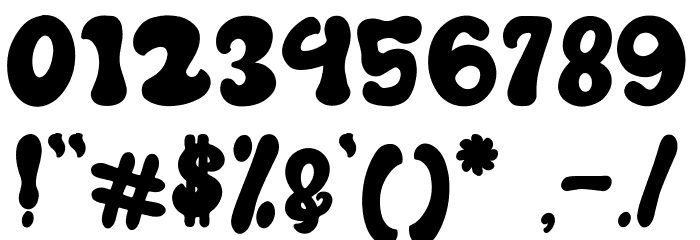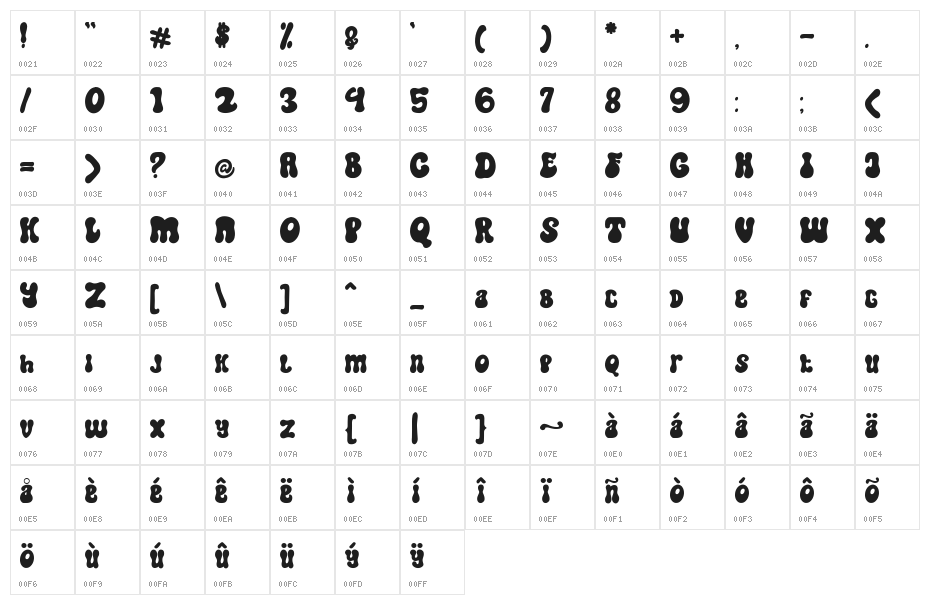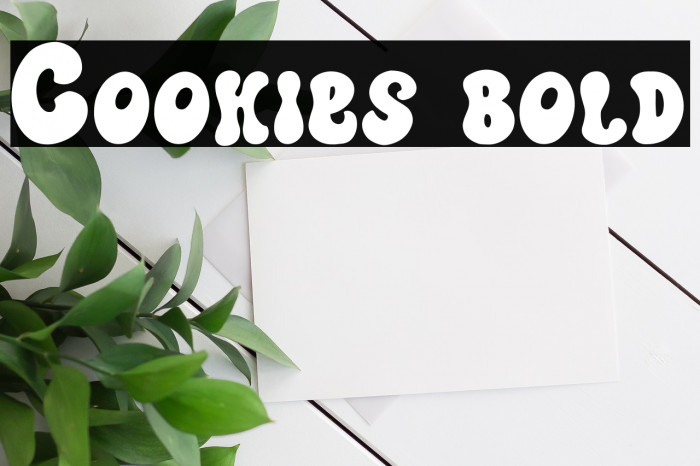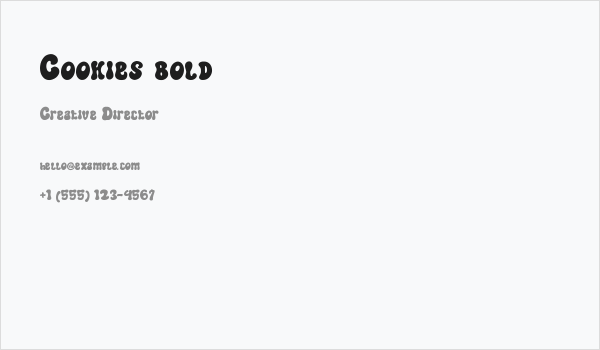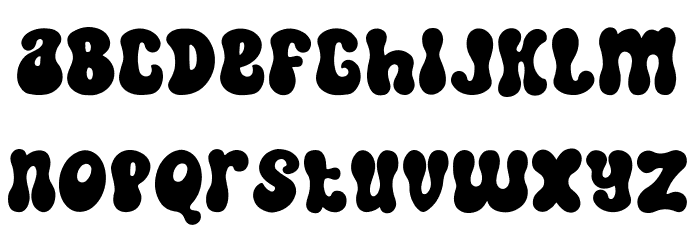
Cookies bold Font
Cookies bold Description
This font is characterized by its bold, playful, and bubbly appearance, reminiscent of playful shapes and rounded edges. The letters are thick and substantial, creating a strong visual impact. The rounded forms and exaggerated curves give it a whimsical and fun feel, making it ideal for projects that require a touch of creativity and lightheartedness. The numbers and special characters maintain the same playful style, ensuring consistency throughout. This font's unique style makes it stand out, perfect for designs that aim to capture attention and convey a sense of fun.